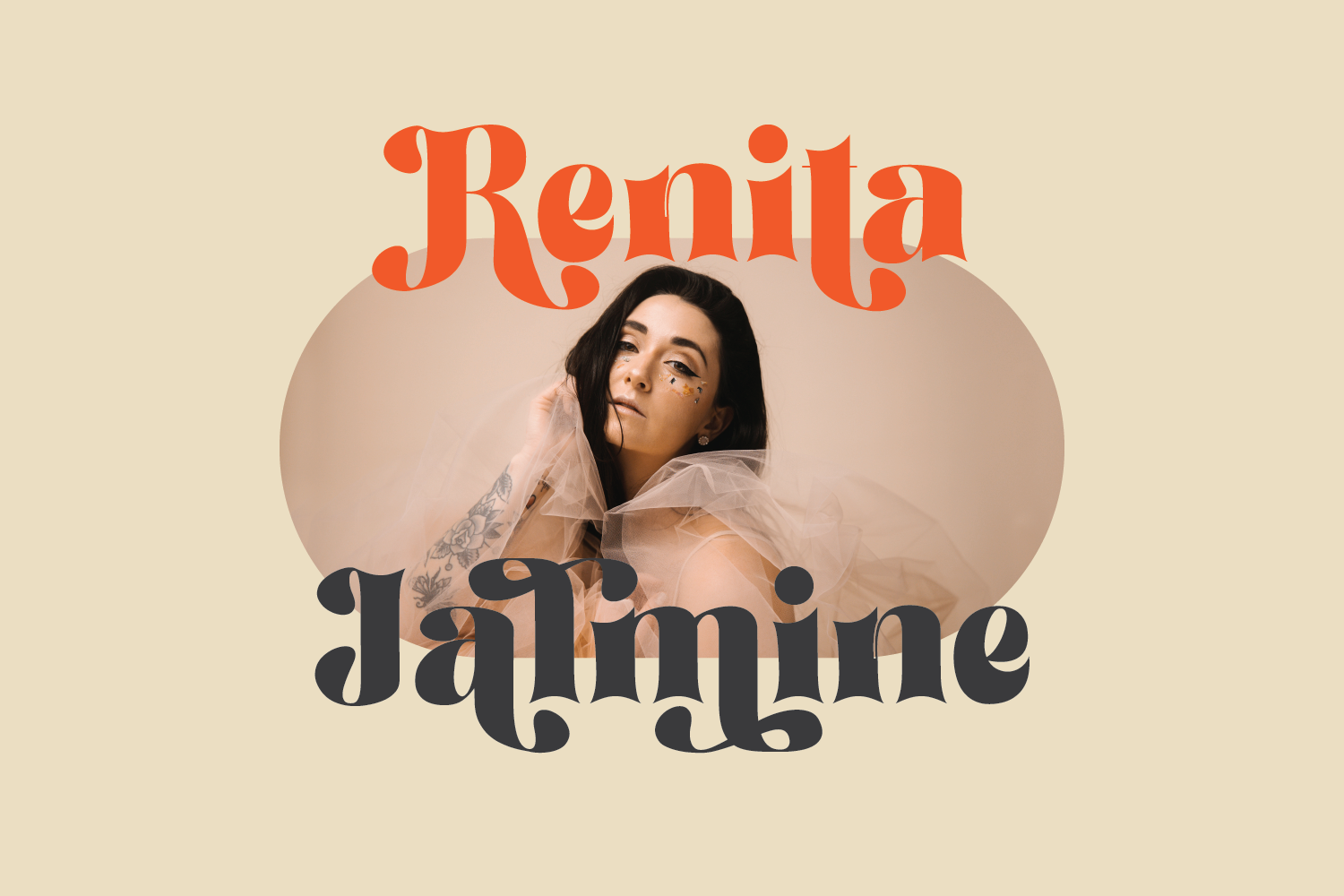
Looking for a bold, modern, and stylish serif display font? Look no further than Kenlan Free Font! With its unique and fashionable appearance, this font is perfect for creating chic and sophisticated designs. Whether you’re designing for print or digital media, Kenlan Free Font is sure to make a statement and elevate your work to the next level.